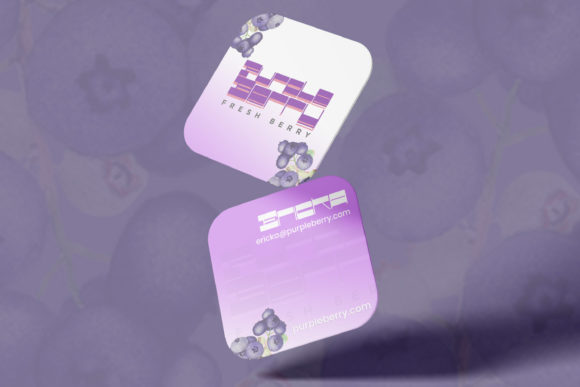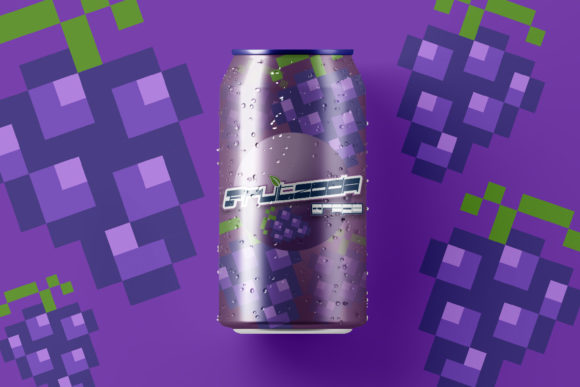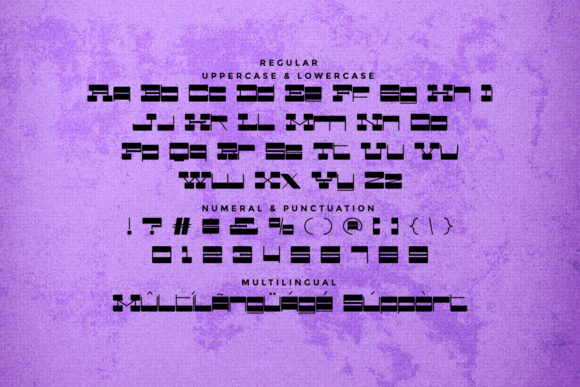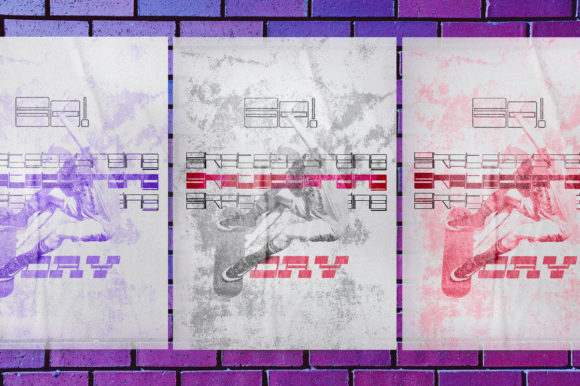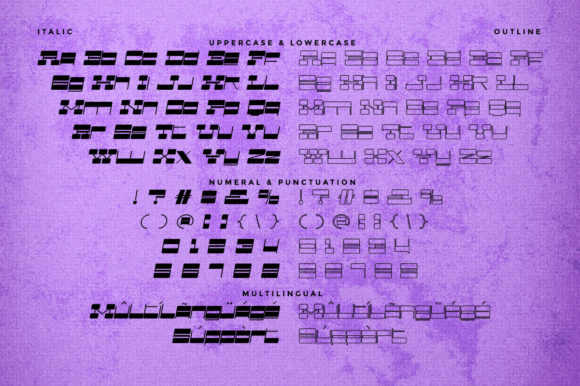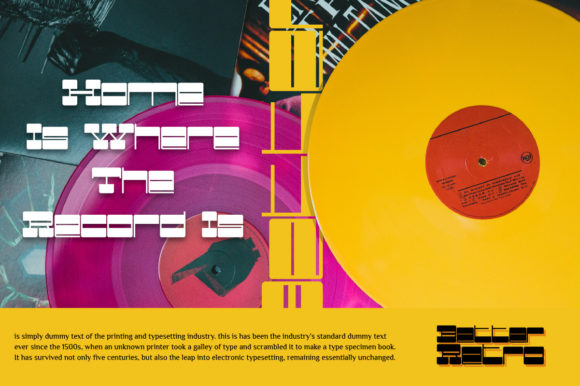
Timeless Vibes for Your Next Project
Do you remember the first time you stumbled upon a vintage video game or an old-school movie poster? The bold, squared letters and nostalgic feel instantly transport you back in time, don’t they?
That’s exactly what the Better Retro Font is all about – capturing the essence of a bygone era and infusing it with a modern twist. This cool, display font is perfect for any branding project, from logos and t-shirt printing to creative products and more. Whether you’re a seasoned designer or just starting out, the Better Retro Font is a valuable addition to your toolkit.
Better Retro Font Key Features
- Unique Character Set: Includes a range of unique retro-inspired characters, including alternate glyphs and swashes, to add a touch of nostalgia to your designs.
- Language Support: Supports a wide range of languages, including Latin, Cyrillic, Greek, and more, making it a versatile font for international designs.
- Font Weight and Style: Offers 5 different font weights (Light, Regular, Medium, Bold, and Extra Bold) and 3 different font styles (Regular, Italic, and Bold Italic), providing ample flexibility for designers.
Better Retro Font Review
As a designer, I was excited to dive into the “Better Retro Font” and see if it lives up to its name. Overall, I’d say it’s a solid choice for anyone looking to add a touch of nostalgia to their project.
- Authentic retro vibe: The font does a great job of capturing the essence of classic typography from the 70s and 80s.
- Wide range of styles: From bold to italic, there are plenty of variations to choose from.
- Legibility: Despite its retro look, the font is surprisingly easy to read.
- Limited character set: Some characters, like accented letters and punctuation, are missing or awkwardly rendered.
- Not ideal for small text: The font’s retro aesthetic can make it difficult to read at smaller sizes.
Overall, I think the “Better Retro Font” is a great choice for designers who want to add a touch of retro flair to their project. While it may have some limitations, its authentic vibe and wide range of styles make it a solid option. Just be sure to use it wisely and consider the limitations when making your design decisions.
Better Retro Font is perfect for:
- Designing vintage-inspired posters and flyers
- Creating retro-themed social media graphics
- Adding a nostalgic touch to presentations and documents
- Designing vintage-style merchandise, such as t-shirts and stickers
Experiment with different font sizes and colors to achieve the perfect retro look. Use it in combination with other retro-themed elements to add depth and interest to your design. Don’t be afraid to get creative and try out new things!
Playfair Display is a high-end serif font designed for luxury and elegance. It’s often used in high-end magazines, fashion brands, and luxury products. Playfair Display is a more luxurious and sophisticated alternative to Better Retro Font, making it suitable for high-end designs.
What is the recommended font size for using the Better Retro Font?
The Better Retro Font is designed to be used at medium to large font sizes, typically between 14pt and 48pt. At smaller font sizes, the font may become difficult to read. We recommend using the font at a minimum size of 14pt for optimal readability.